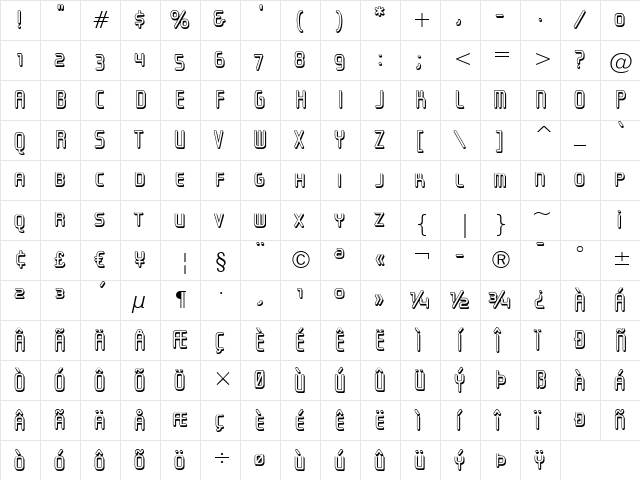
Sugarskin BTN Shadow Small Cap Regular
Design Context for Sugarskin BTN Shadow Small Cap Typeface
Sugarskin BTN Shadow Small Cap brings ornamental detail and strong personality to headlines and identities, where visual impact matters more than quiet functionality.
Font Pairing: Pair with a clean neutral sans-serif for body copy to let Sugarskin BTN Shadow Small Cap's character lead without overwhelming the composition.
Pro Tip: Use Sugarskin BTN Shadow Small Cap exclusively at display sizes — it was designed to be seen, not read at length. Let a neutral companion handle body copy.